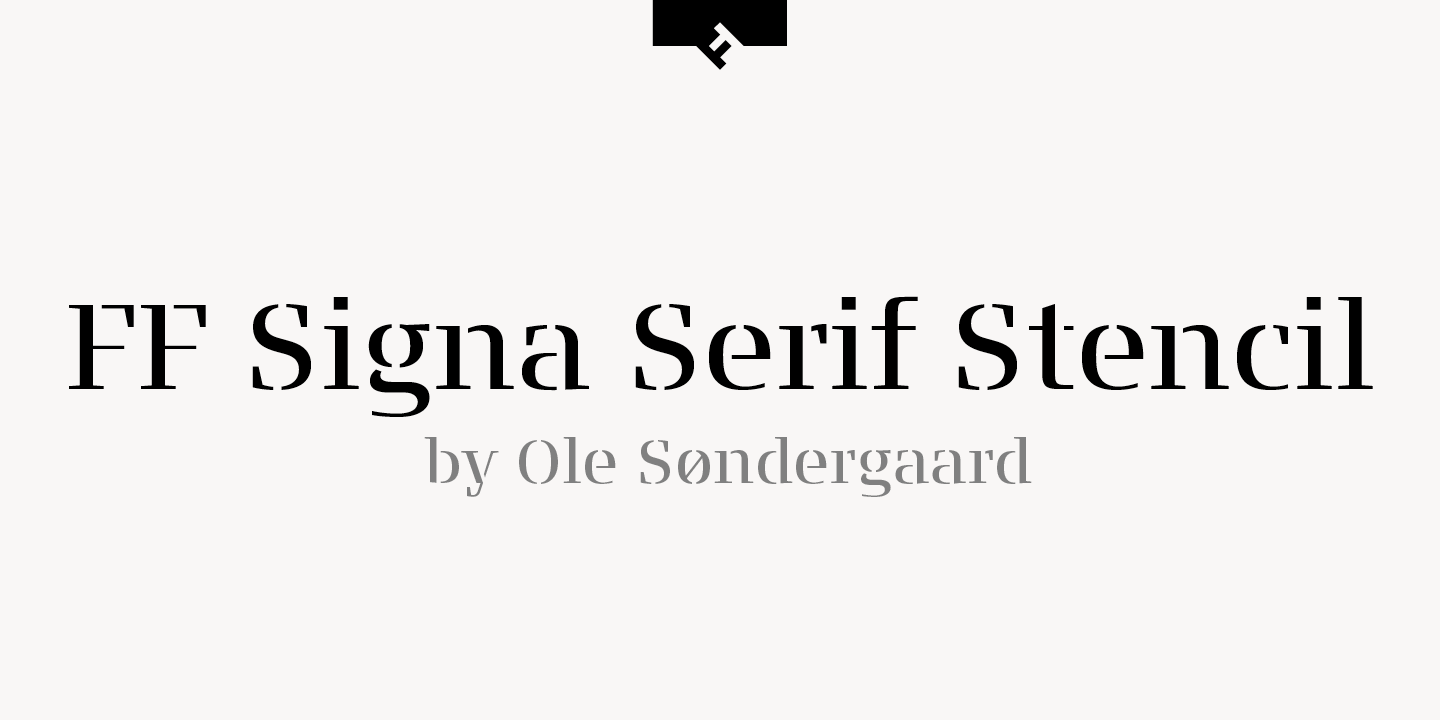
The FF Signa Serif Stencil Font is a unique and impactful typeface that ingeniously combines the classic elegance of a serif with the distinctive, industrial aesthetic of a stencil. Designed by Ole Berntsen Søndergaard, it inherits the architectural lettering roots of the larger FF Signa family, providing clarity and strength. This makes it an excellent choice for bold headlines, modern corporate signage, packaging that needs to stand out, architectural plans, exhibition graphics, and any design that demands a blend of sophistication and an edgy, utilitarian feel. Whether you’re crafting a striking brand identity or a large-scale public display, this font will imbue your project with a sense of modern precision and a commanding presence.
What makes the FF Signa Serif Stencil Font so exciting is its remarkable ability to blend seemingly contrasting styles into a cohesive and visually captivating whole. It takes the readability and traditional appeal of a serif typeface and injects it with the raw, mechanical breaks characteristic of a stencil. This fusion results in a font that is both refined and robust, making any text it graces feel incredibly unique and thoughtfully designed. It's perfect for designers who want to convey a message of strength, clarity, and a cutting-edge aesthetic that stands out from more conventional choices. The inherent structure and distinct breaks of the FF Signa Serif Stencil Font ensure your design will leave a lasting and memorable impression.
The FF Signa Serif Stencil Font typically offers a focused yet effective family to support its distinctive style. While specific offerings may vary depending on the font package, you can generally expect to find core weights such as Book, Bold, and Black, providing options for emphasis within its stencil aesthetic. Many versions of the FF Signa Serif Stencil Font Free Download also include corresponding italic styles, adding dynamic flexibility for emphasis and stylistic variation. Being part of the broader FF Signa family, it benefits from a heritage of comprehensive design, often including features like consistent metrics and a robust character set optimized for various uses. This specialized family ensures that the FF Signa Serif Stencil Font can be adapted to almost any design requirement where a strong, sophisticated, and distinctly modern statement is desired, maintaining its consistent impactful charm throughout your project.